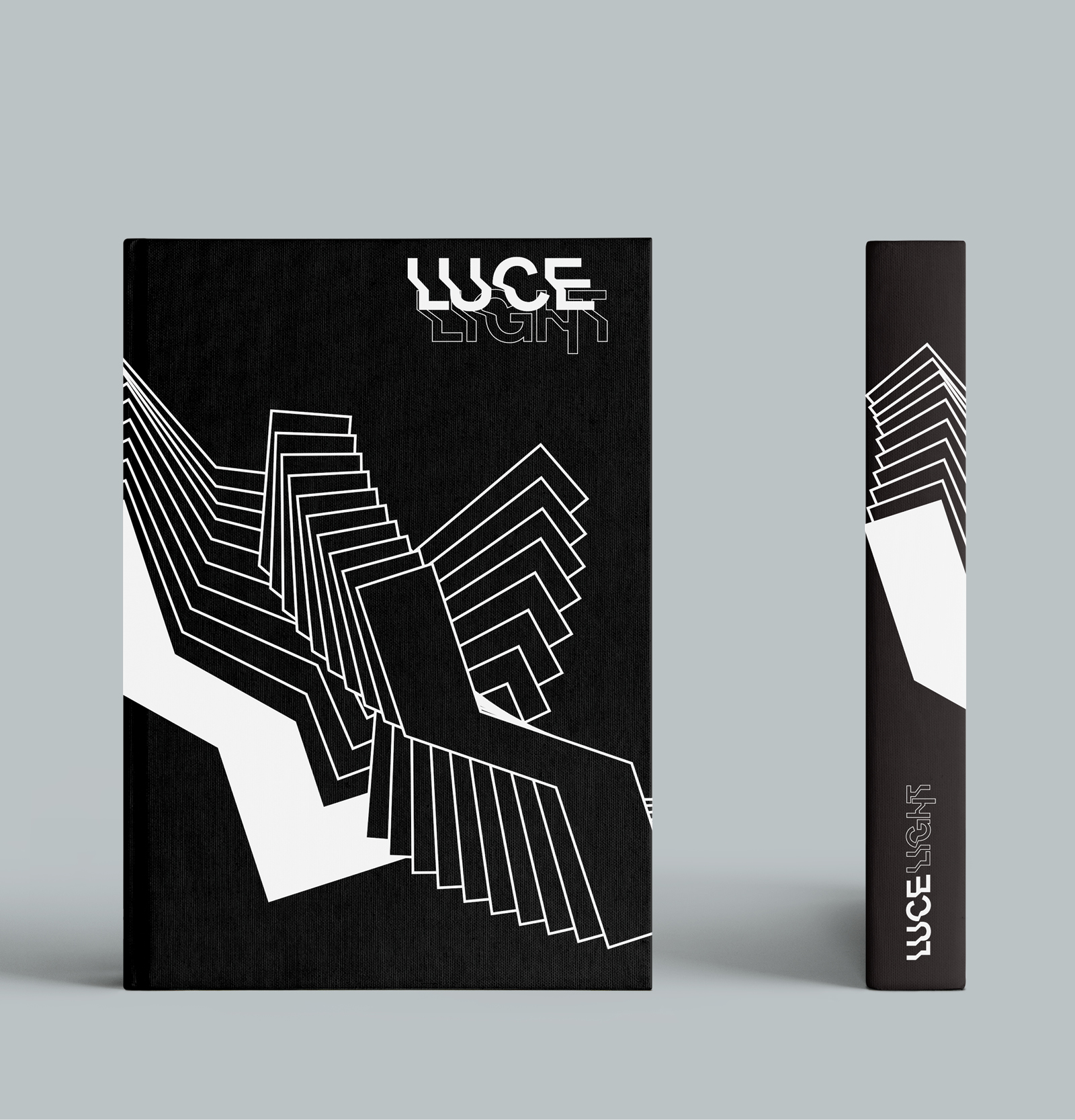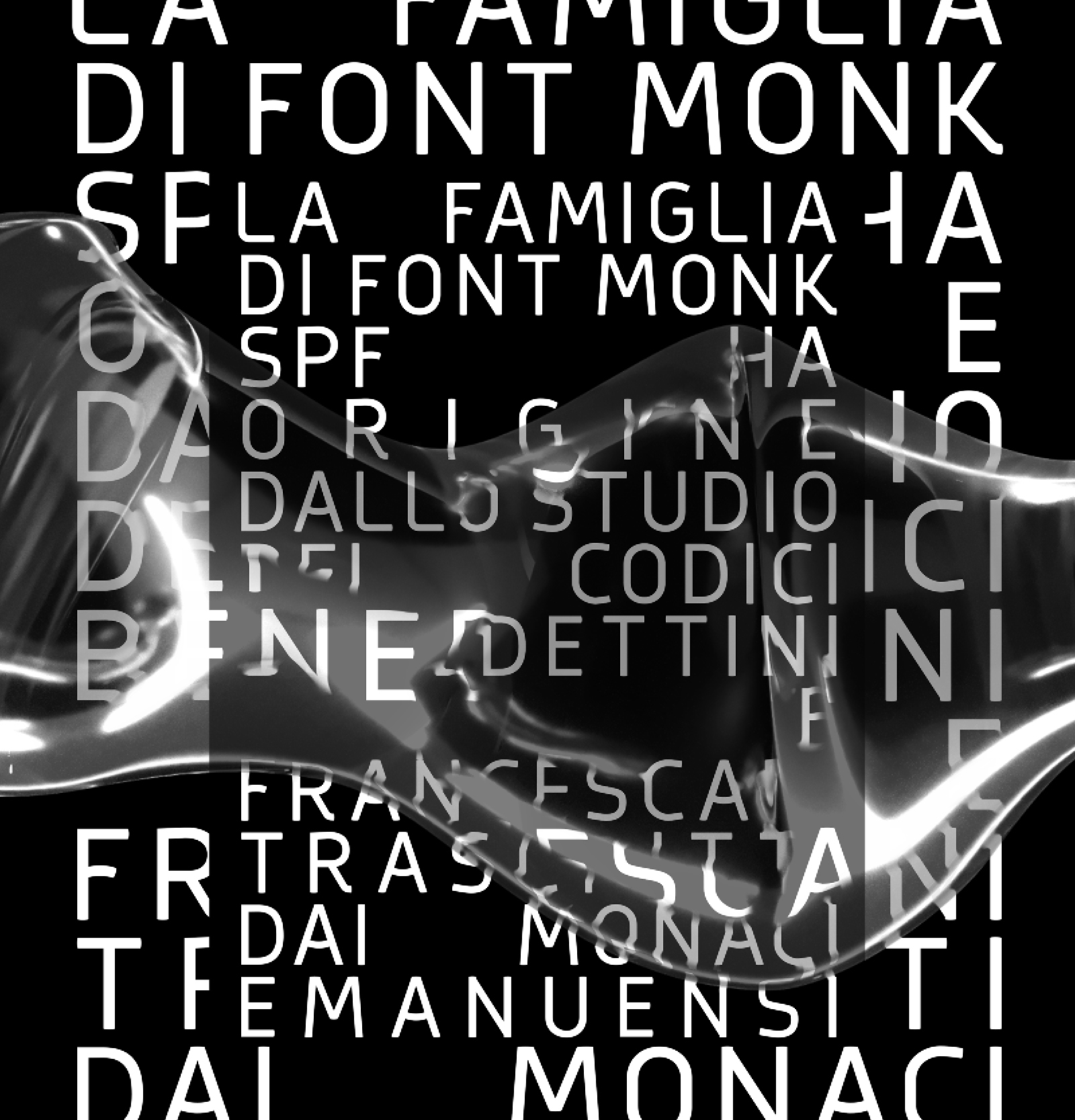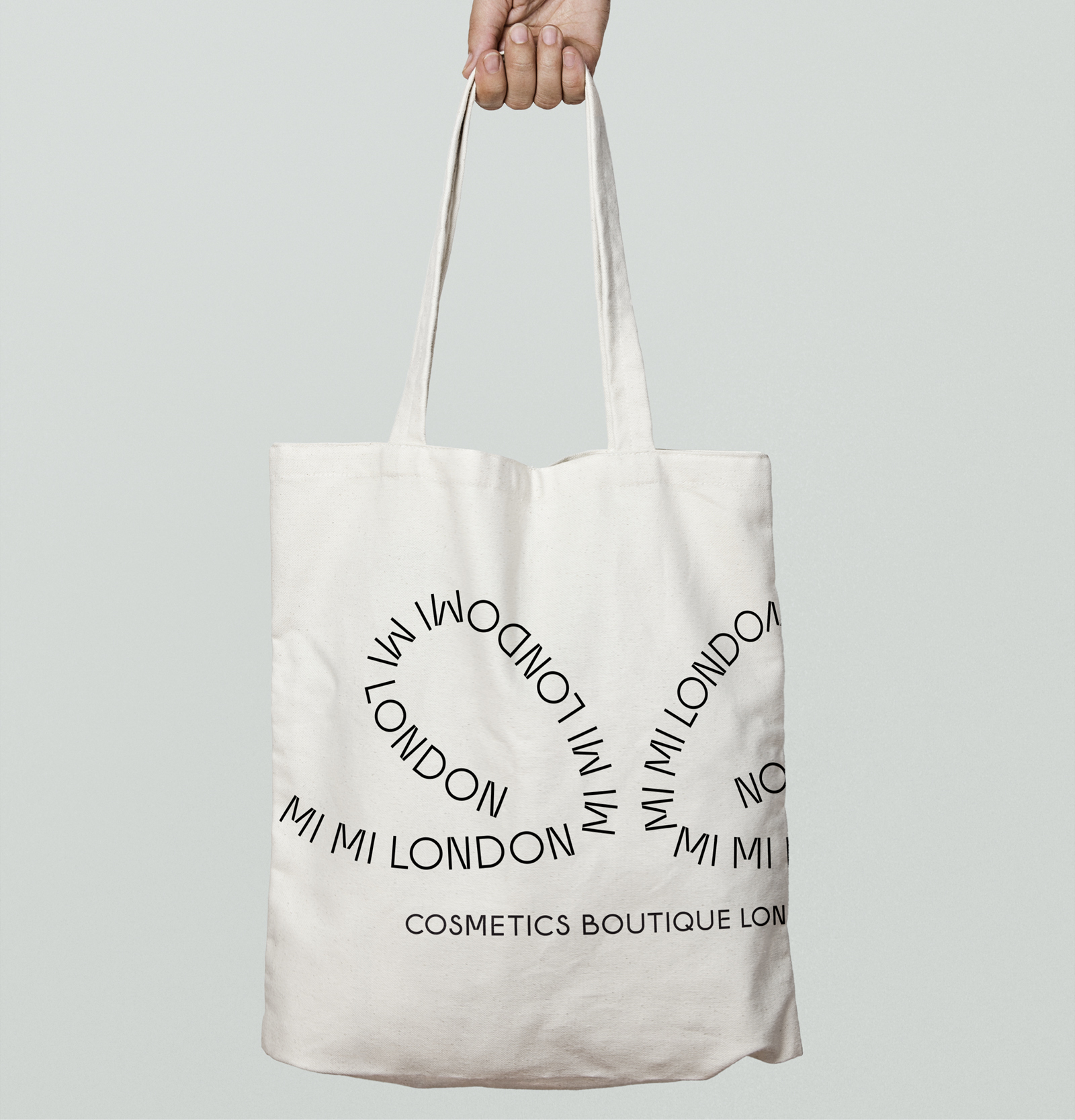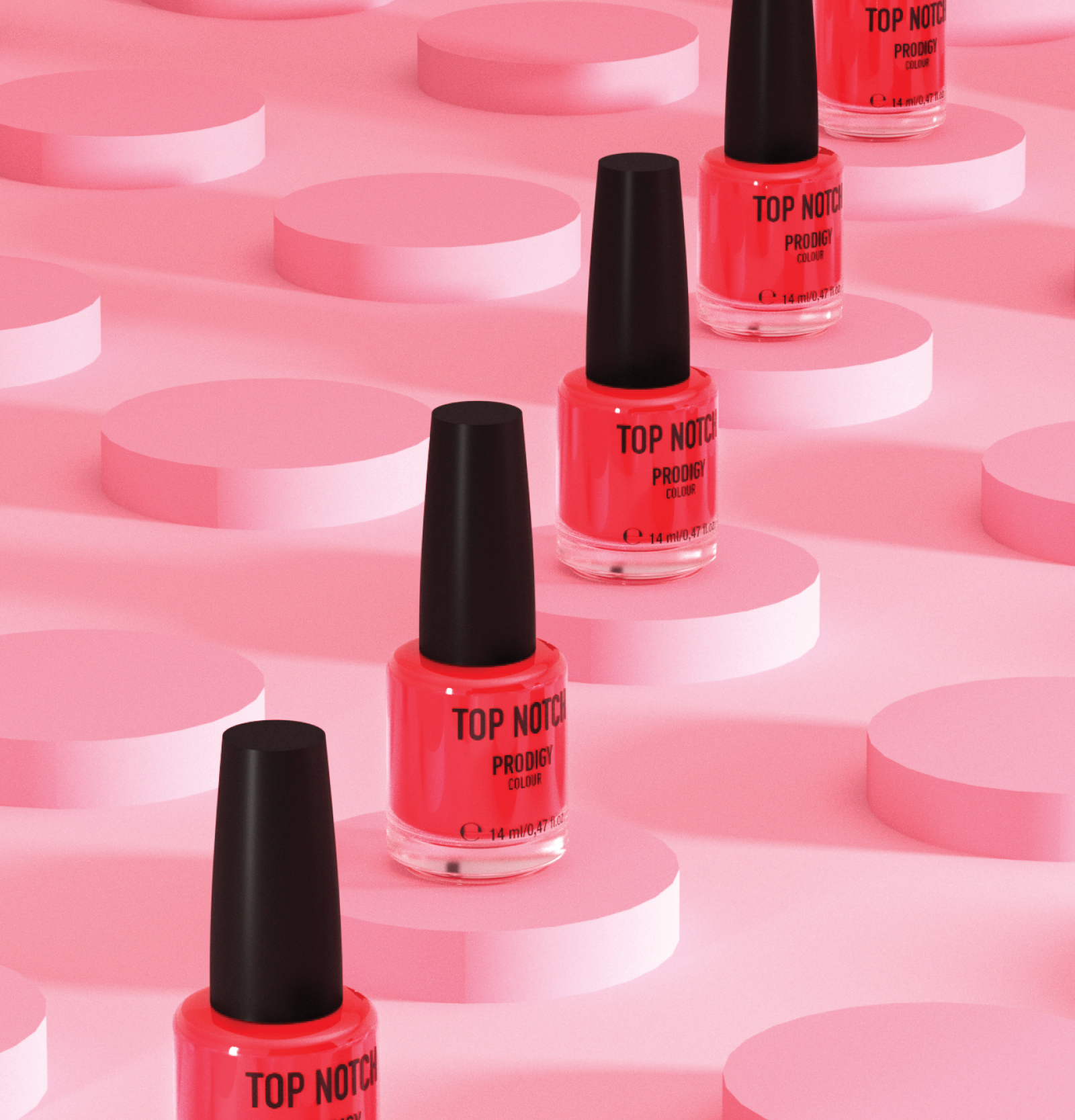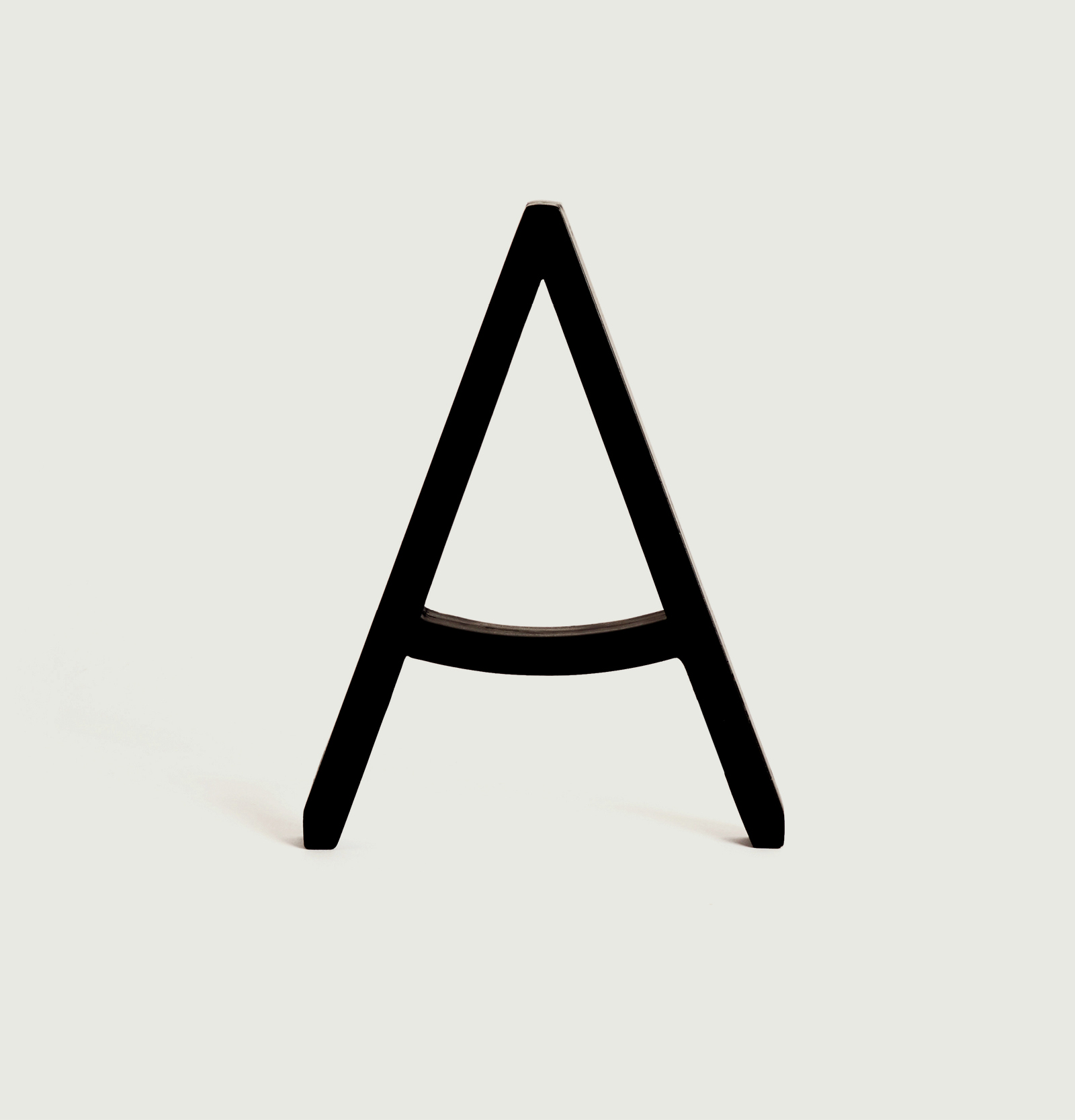
Typography is one of the few parts of a brand that is present almost everywhere.
Logos come and go. Campaigns change. Images change. But type carries the brand’s voice every day — across websites, packaging, advertising, publications, interfaces, signage and everything in between.
When a brand uses an off-the-shelf typeface, that voice is shared. Other companies can use exactly the same forms, proportions and character. That is not necessarily a problem, but for brands looking to build stronger recognition, it can be a missed opportunity.
A custom typeface allows the typography to grow directly from the identity itself — its personality, history, audience, values and the way it needs to communicate. The real value is not simply having something unique. It is having something recognisable.
Over time, the shapes, rhythm and character of the type become familiar. The brand can begin to feel like itself even before the logo appears. And because the typeface is designed around the way the organisation actually works, it can also solve practical problems: different weights, languages, digital environments, editorial use, motion, signage or whatever the identity requires.
The typeface stops being something added to the brand. It becomes part of the brand.
What S6 can do
There are different ways to arrive at a custom typeface.
Sometimes an existing S6 family already has the right foundations. In that case, we can adapt it for the identity — redrawing characters, changing proportions, developing new weights or styles, or introducing details that make the typeface much more specific to the brand.
For other projects, the right answer is to start from nothing.
In that case, the typeface is developed around the identity from the beginning: its structure, proportions, personality and family are created specifically for the way the brand needs to speak.
The Kitchen and Field are good examples of how different those outcomes can be.
The Kitchen needed a more expressive typographic character, something that could move naturally from the identity into the physical experience of the brand.
Field called for something quieter and more controlled, where proportion, spacing and restraint carry much of the identity.
That difference matters.
Custom type should not make every client look like S6. It should make every client look more like themselves.